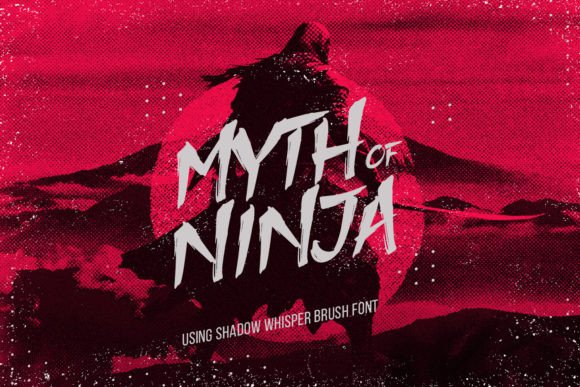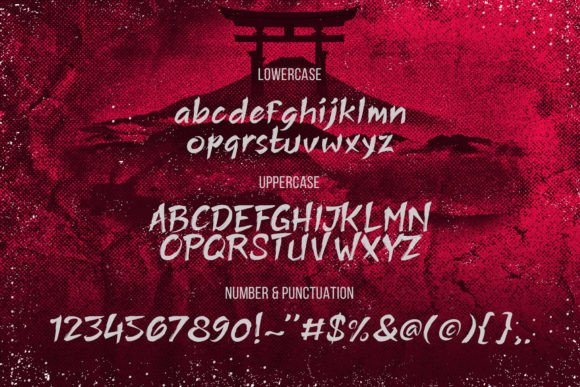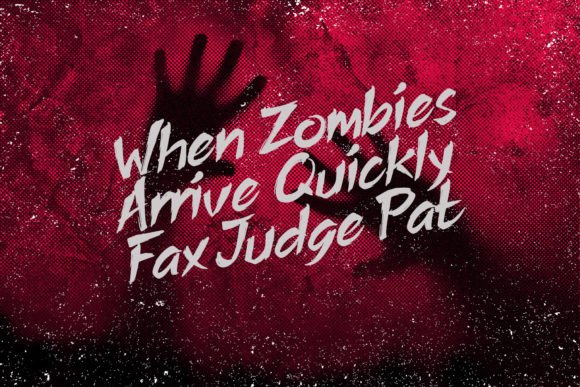
Introduction to Shadow Whisper Font
Have you ever stared at a blank canvas, trying to bring your creative vision to life? The cursor blinks, and your mind goes blank. But then, a spark of inspiration hits, and your imagination starts to run wild. That’s exactly what happens when you discover the Shadow Whisper Font – a premium, handmade brush font that will transport your design projects to the next level.
As a designer, you’re constantly on the lookout for the perfect font to elevate your creative project. With Shadow Whisper Font, you’ll find yourself captivated by its organic, slightly imperfect lines, reminiscent of Japanese calligraphy. This high-quality design resource is not just a pretty face; it’s a powerful tool that will add a premium touch to your branding, logos, game titles, book covers, posters, and more.
Key Features of Shadow Whisper Font
- Unique, elegant design with a transparent background, perfect for creative projects and designs that require a touch of sophistication.
- High-quality font with precise details and smooth lines, suitable for both print and digital design applications.
- Designed as a versatile font, suitable for a wide range of creative projects, from logos and branding to typography and editorial content.
- Shadow Whisper Font is a valuable design resource for those seeking a sophisticated and elegant typeface to elevate their creative project.
Honest Review: Shadow Whisper Font
I recently had the chance to work with the Shadow Whisper Font and I must say it’s been a game-changer for my creative projects. As a designer, I’m always on the lookout for high-quality fonts that can elevate my designs, and Shadow Whisper Font delivers. The free download option is a huge plus, making it accessible to designers of all levels.
- ✨ The transparent background allows for seamless integration with other design elements.
- ✨ The font is highly versatile, making it perfect for a variety of creative projects.
- ✨ The design is sleek and modern, giving my designs a professional touch.
- ⚠️ The font can be a bit overwhelming when used in large quantities, so be sure to use it sparingly.
- ⚠️ Some users may experience difficulties with text legibility at smaller font sizes.
Overall, I’m thoroughly impressed with the Shadow Whisper Font. Its high quality and versatility make it a valuable addition to any designer’s toolkit. If you’re looking for a reliable design resource, I highly recommend giving it a try.
Tips for Getting the Most Out of Shadow Whisper Font
Use the Shadow Whisper Font for creative projects that require a high-quality, design resource. Experiment with different font sizes and styles to create a unique look. You can also combine the Shadow Whisper Font with other design elements to create a visually appealing design.
The Shadow Whisper Font is ideal for use in logos, branding materials, and marketing materials. It’s also great for use in creative projects such as book covers, magazine layouts, and website designs.